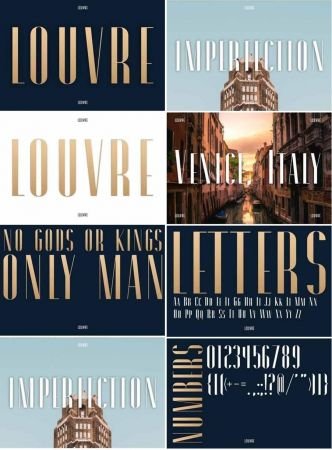
DesignOptimal - Louvre - A Classic Display Font 4011727
Louvre is gorgeous, beauty and enlighten. It has italic and extrude (reguler) version. Be inspired by his classic persona.